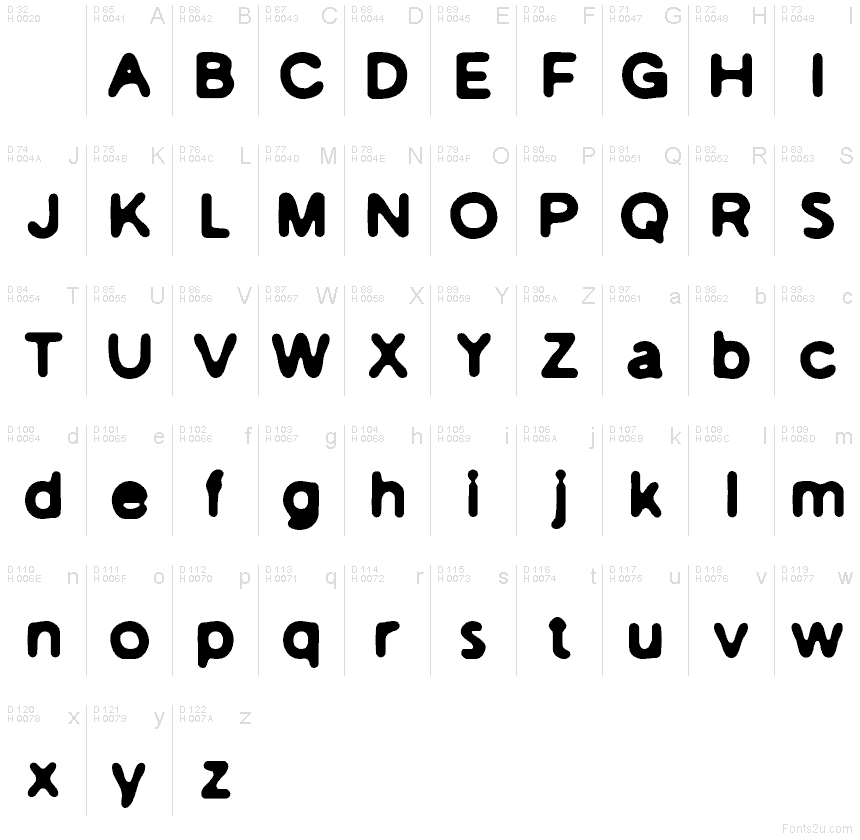
CSPacifyDrawn-Regular Demo
CS Pacify Drawn font by Craft Supply Co. is a free eroded display font. Built within the CS Pacify family, it leans into soft, inky blobs and rounded terminals that feel squishy to the touch—like marker strokes that puddled just a bit. The worn, organic edges keep it friendly rather than messy, while the chunky silhouettes and generous counters give headlines a calm, confident rhythm.
Using CS Pacify Drawn, you’ll get standout impact for kids branding, snack packaging, indie posters, wellness campaigns, festival merch, and social stickers. The bubbly forms read fast at large sizes and bring a playful hush to noisy layouts. Pair this free font with a clean geometric sans for body copy, and give it a touch of loose tracking when you want extra breeziness.